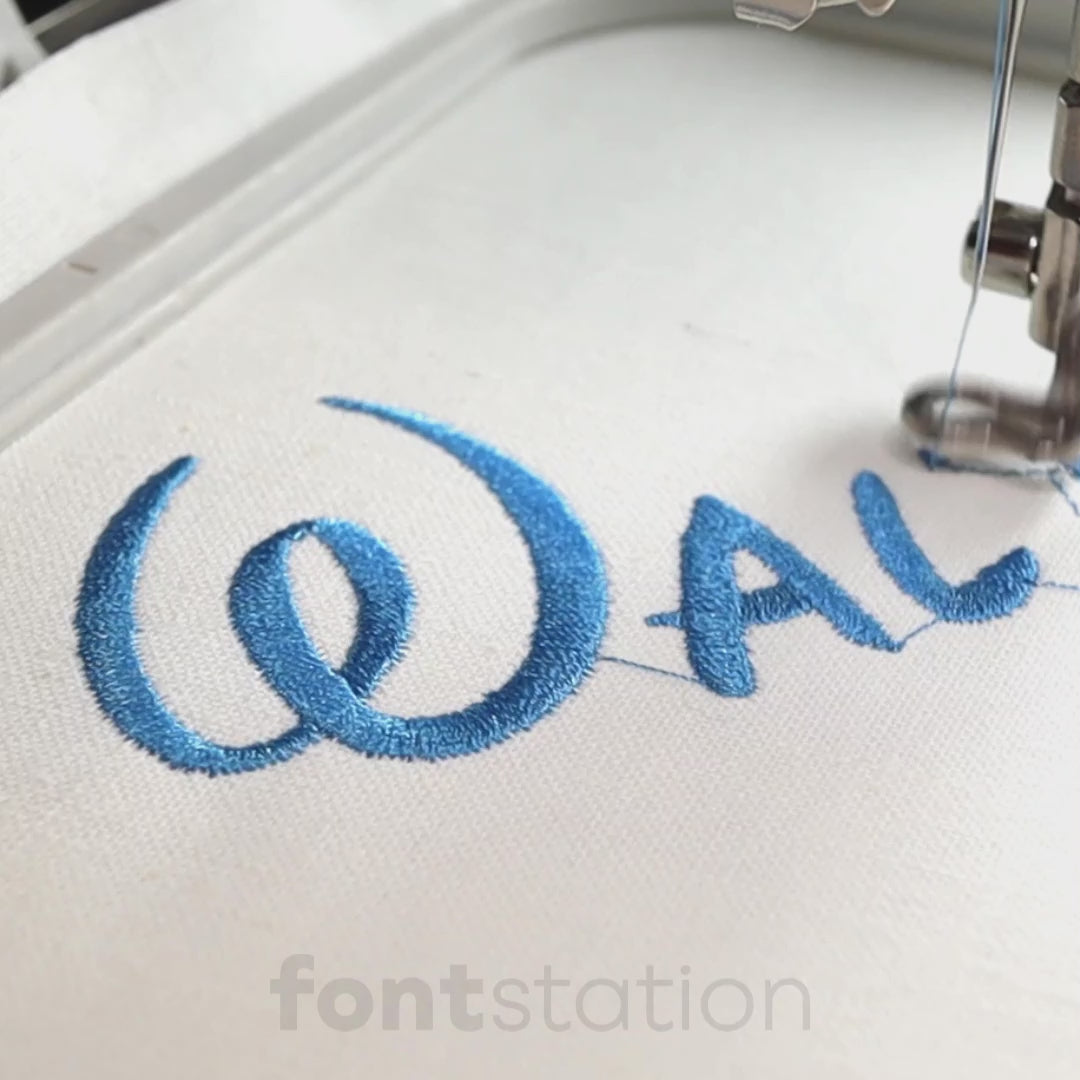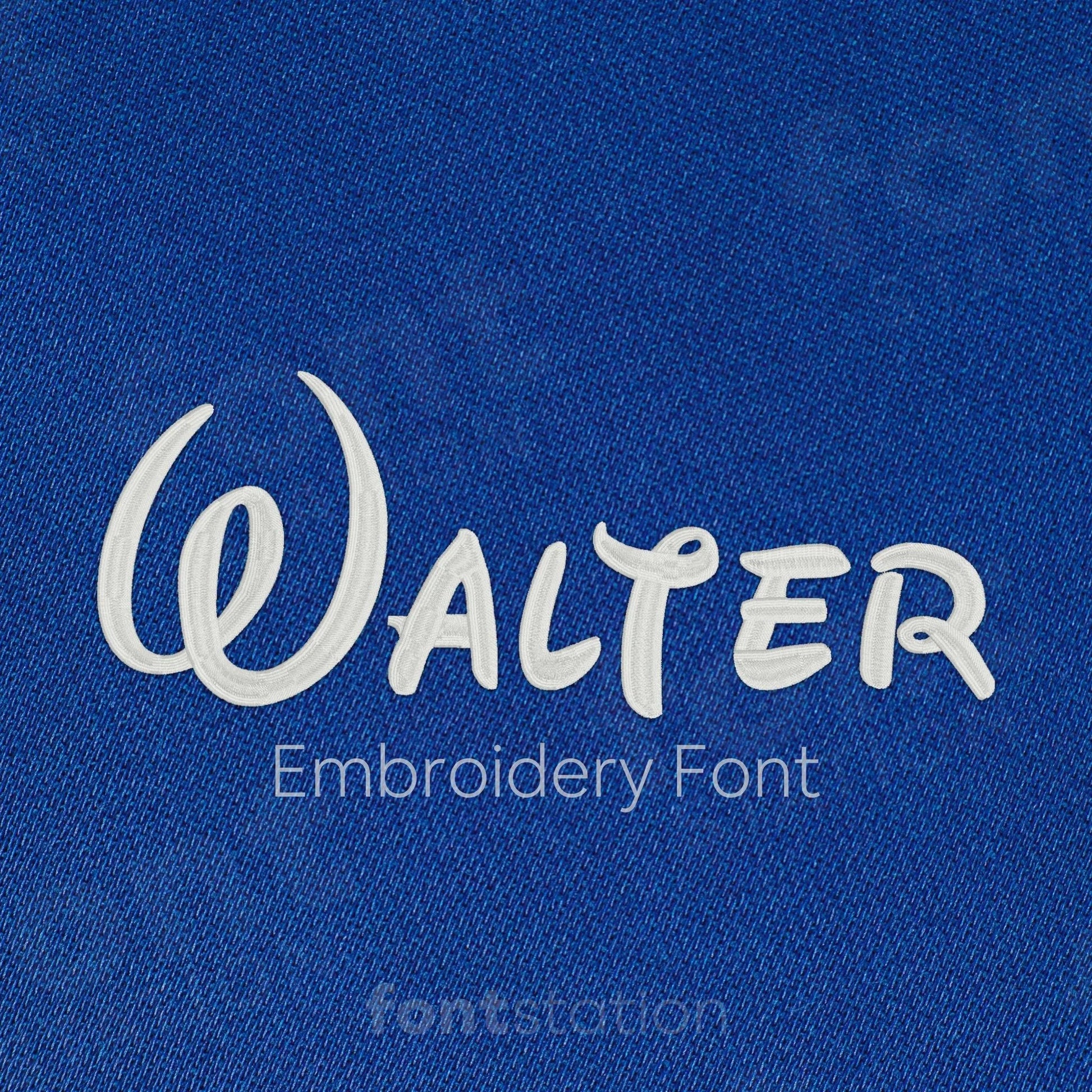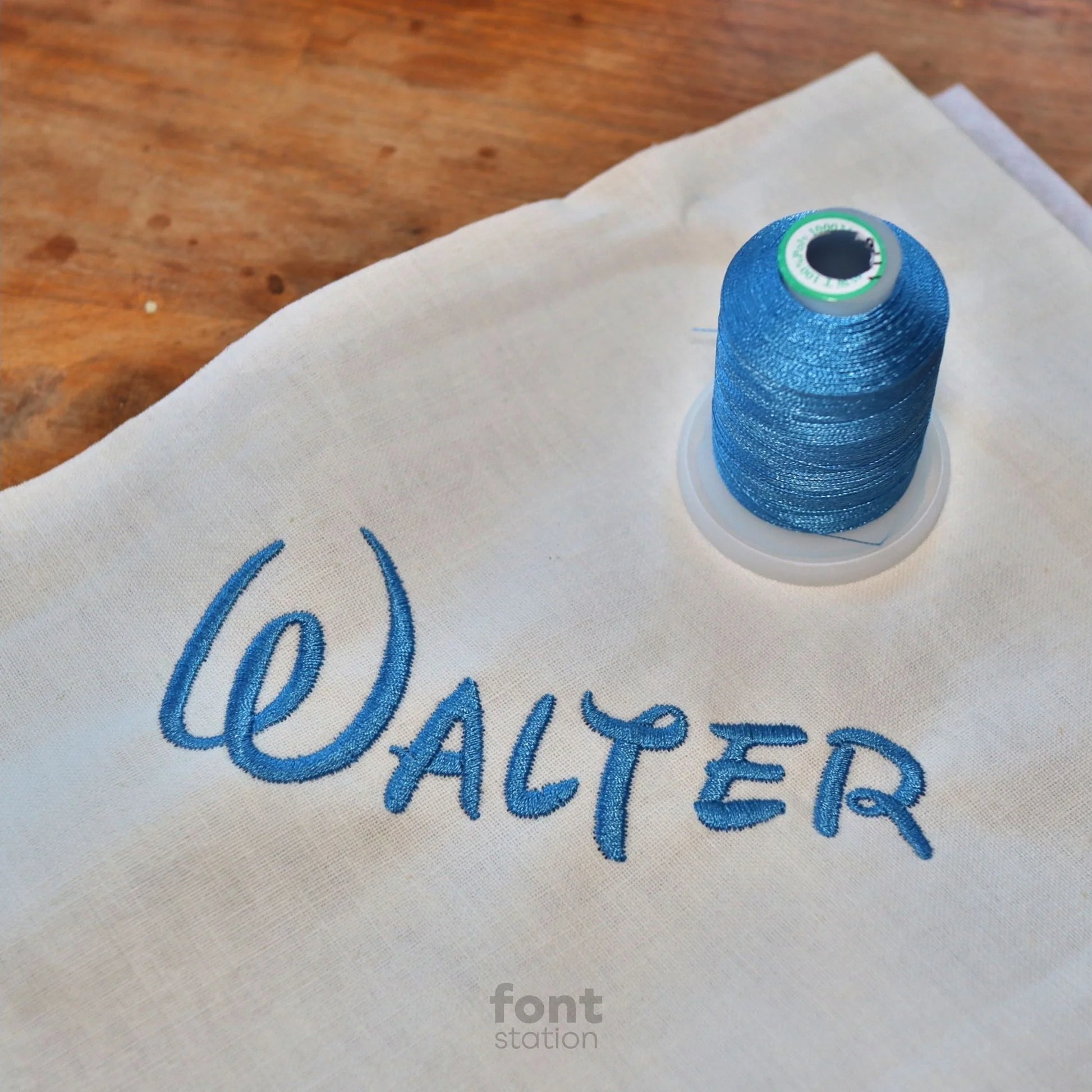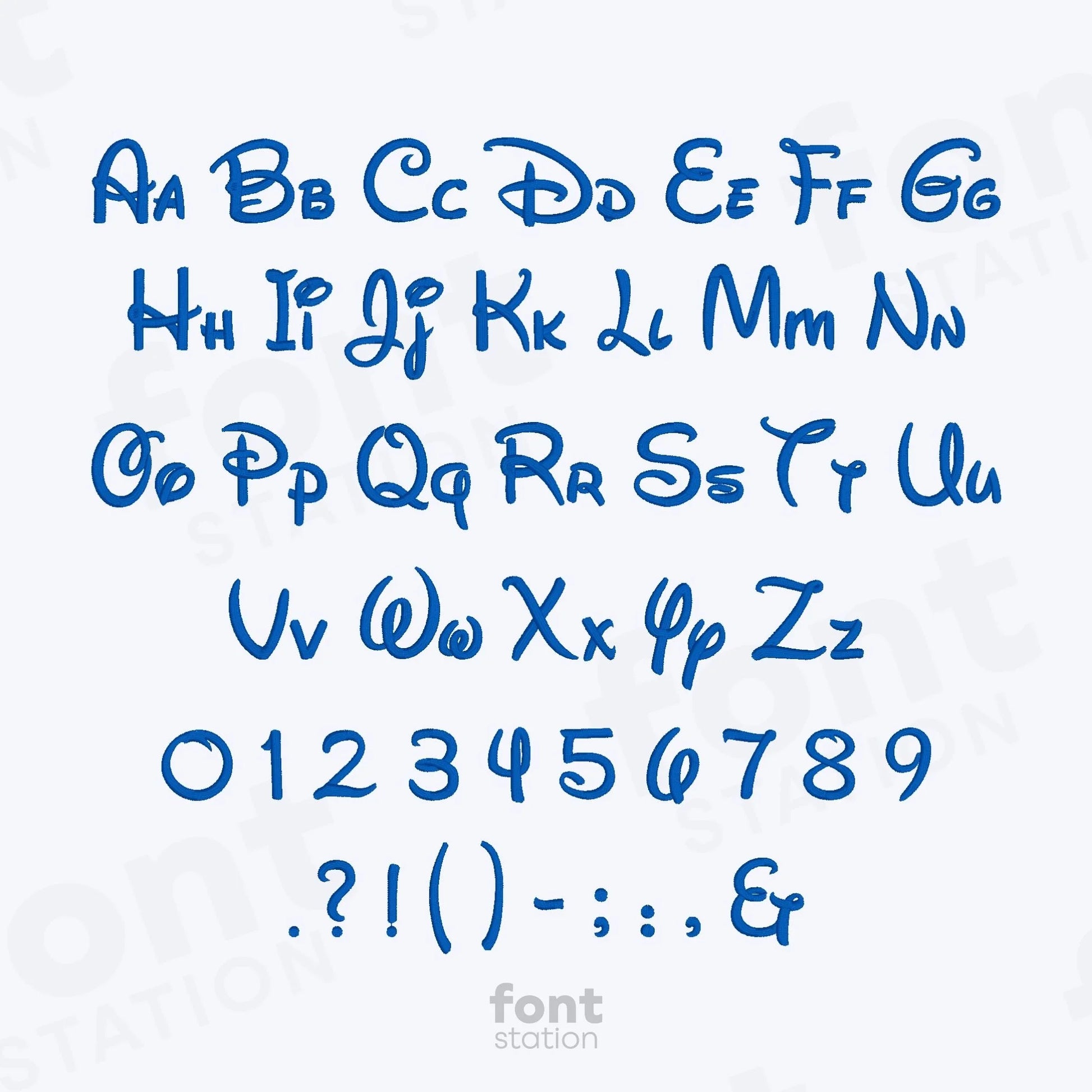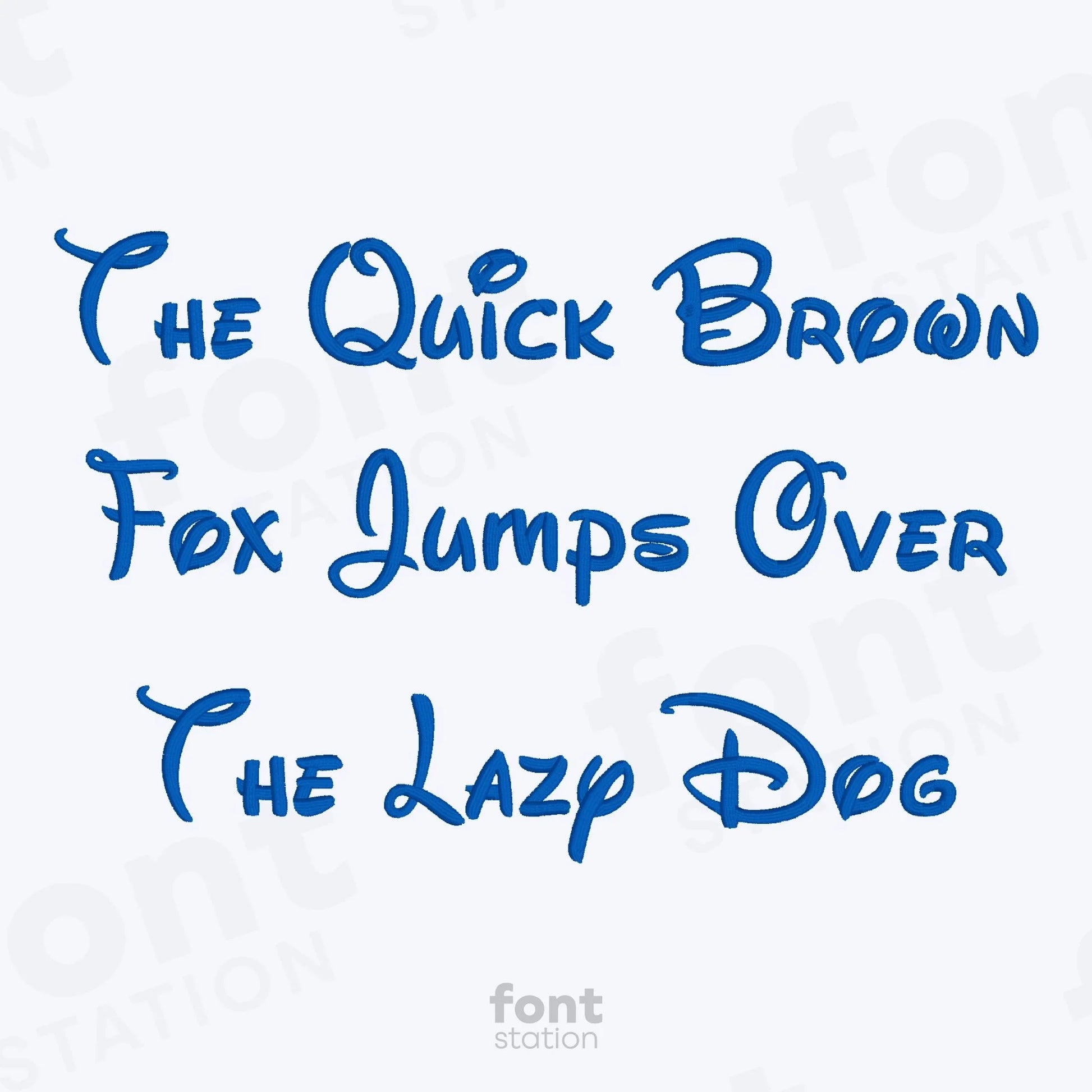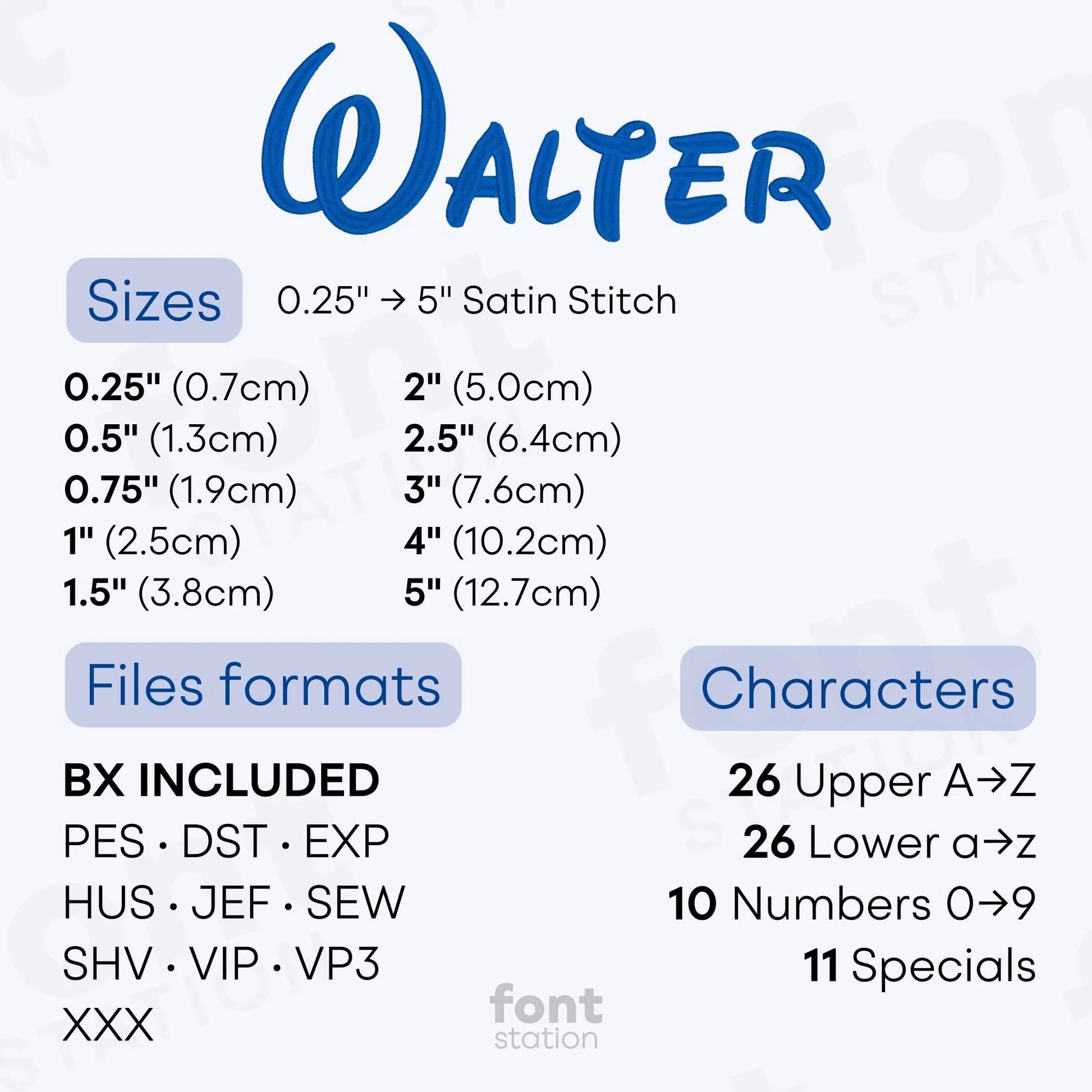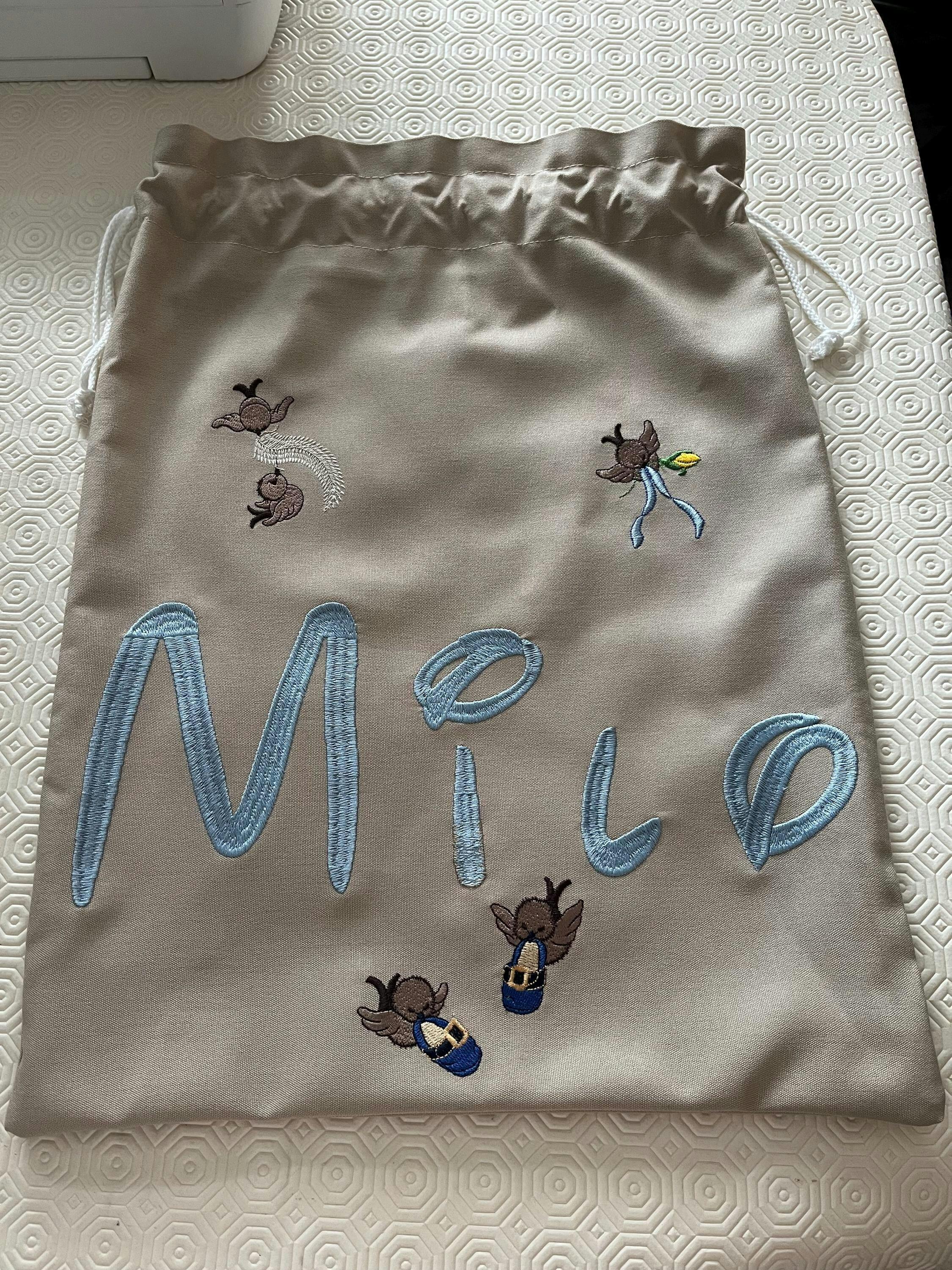
Walter Embroidery Font
Add a magical touch to your next project with our Walter embroidery font, a decorative alphabet of bold letters that stitch beautifully on any embroidery machine. Perfect for themed designs, personalized gifts, and creative embroidery ideas.
About the Walter Embroidery Font
Bring a touch of magic to your projects with the Walter embroidery font, a fantasy-style alphabet for machine embroidery.
The Walter embroidery font features decorative, fantasy-themed letters that stitch smoothly on any embroidery machine. This magical embroidery alphabet is ideal for custom names, themed gifts, and playful designs. Delivered in BX, PES, DST, JEF, EXP, VP3, and HUS formats, each machine-ready letter is professionally digitized for high-quality stitching on a wide range of embroidery projects.